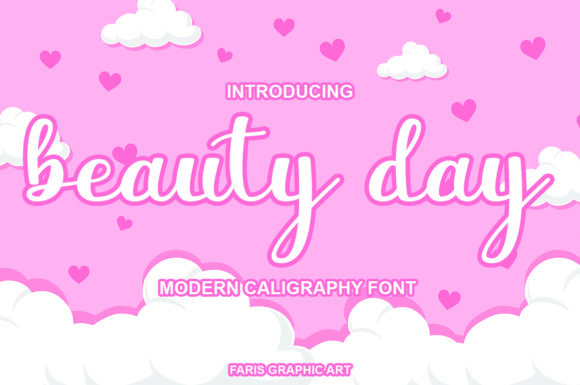
The Perfect Font for Your Masterpiece
Have you ever sat down with a blank sheet of paper and a blank mind, waiting for the perfect idea to strike? For designers, this moment is all too familiar, and it’s what drives us to create something truly special. It’s in these moments that we’re reminded of the power of a great font – one that can elevate our message, evoke emotion, and bring our vision to life.
Enter the Beauty Day Font, a beautiful and versatile handwritten font that’s perfect for any creative project. With its elegant, cursive script, this font is ideal for wedding invitations, stationery, social media posts, and more. Whether you’re a seasoned designer or just starting out, the Beauty Day Font is a valuable tool in your toolkit, offering endless possibilities for expression and creativity.
Beauty Day Font Key Features
- Unique Characteristics: Beauty Day Font features a modern, elegant design with a mix of serif and sans-serif elements, making it suitable for a variety of design projects, including fashion, beauty, and lifestyle branding.
- Language Support: The font supports a wide range of languages, including English, Spanish, French, German, Italian, Portuguese, and many more, making it a great choice for international design projects.
- Font Style: Beauty Day Font comes in three font styles: Regular, Italic, and Bold, offering flexibility and versatility for designers to create visually appealing typography.
- Scalability: The font is designed to be highly scalable, allowing designers to use it in various sizes and resolutions without compromising its quality and legibility.
Beauty Day Font Review
Overall, I found the Beauty Day Font to be a visually appealing and modern font, perfect for beauty and wellness-related projects. Here’s a breakdown of what I liked and didn’t like.
- Unique and feminine design, great for beauty and lifestyle projects.
- Comes in a range of weights, making it easy to use in different contexts.
- Legibility is clear, even at smaller font sizes.
- May not be the best choice for projects requiring a more minimalist or sans-serif font style.
- Some users may find the font too ornate or over-the-top for certain applications.
- Lack of customization options, such as italic or bold styles, may be a limitation for some users.
Overall, I think the Beauty Day Font is a great addition to any designer’s toolkit, but it’s essential to use it judiciously and consider the project’s specific needs and style.
Use the Beauty Day Font to add a touch of elegance and sophistication to your designs.
Pair it with other fonts to create a unique and eye-catching look.
Experiment with different font sizes and colors to add emphasis and visual interest.
The Beauty Day Font is perfect for:
Beauty and wellness branding
High-end fashion and luxury products
Alternatives to “Beauty Day Font” for Designers
Pacifico Font is a beautiful, elegant script font that is perfect for creating a luxurious and high-end feel. It’s ideal for branding, packaging, and advertising materials where a touch of sophistication is required.
Comparison to Beauty Day Font: Pacifico Font has a more refined and polished look compared to Beauty Day Font. It’s better suited for formal and upscale designs.
Great Vibes Font is a modern, handwritten font that exudes a sense of relaxation and playfulness. It’s perfect for creating a fun and casual atmosphere in designs such as social media graphics, blog posts, and event invitations.
Comparison to Beauty Day Font: Great Vibes Font has a more carefree and spontaneous feel compared to Beauty Day Font. It’s better suited for designs that require a lighthearted and approachable tone.
What is the character set of Beauty Day Font?
The Beauty Day Font includes a wide range of characters, including Latin, Cyrillic, and Greek alphabets, as well as punctuation and symbol sets. It also includes support for various languages, including English, Spanish, French, German, Italian, Portuguese, Dutch, Russian, and many more.